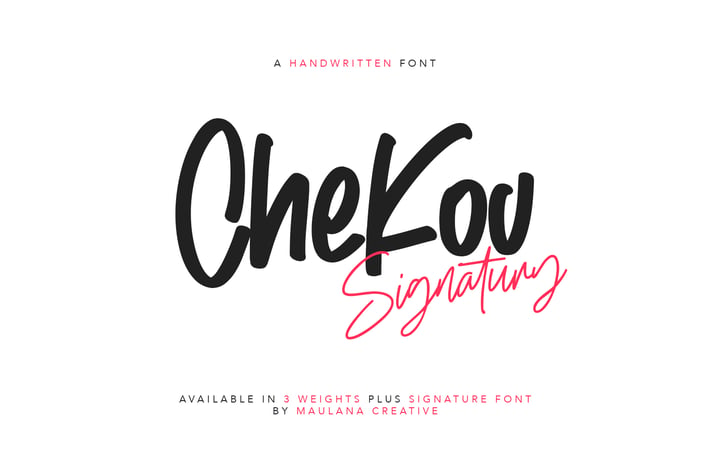
Chekov Handwritten Free Signature Font Typeface
Give your designs an authentic handcrafted feel. “ Chekov” is perfectly suited to signature, stationery, logo, typography quotes, magazine or book cover, website header, clothing, branding, packaging design and more.
Ligature:
- Chekov Signature: at al ar er ff th ii ll mm oo rr ss tt
- Chekov Handwritten: all bo cc di ee fl go ii ll on oo pi ro ss tt ul vl xx you